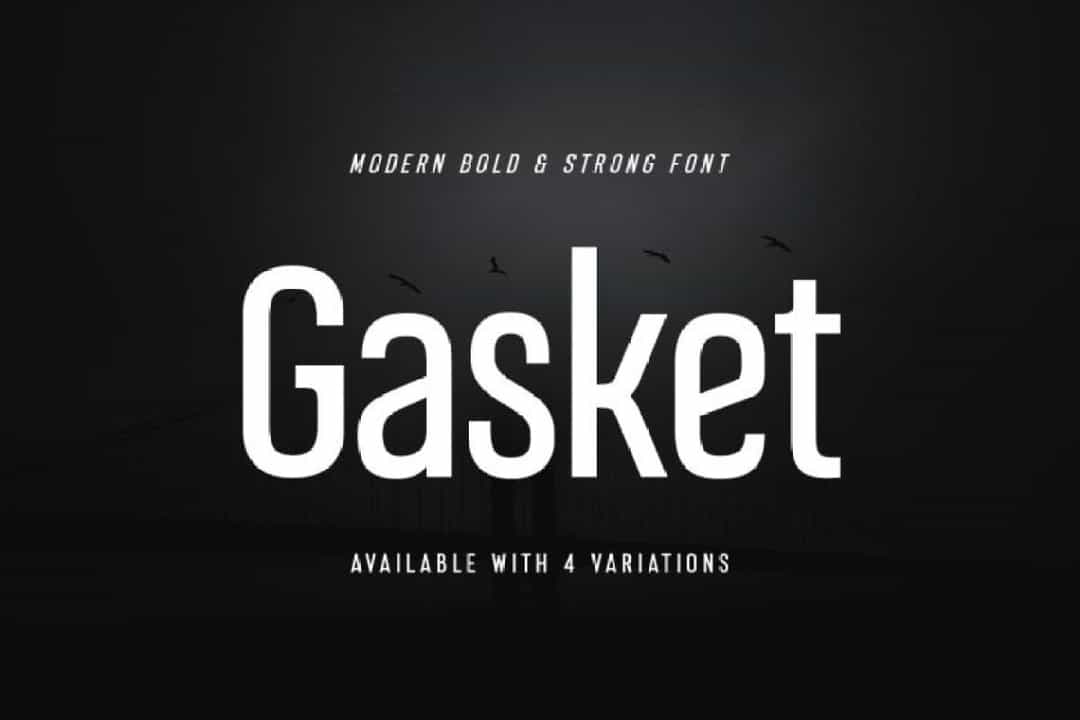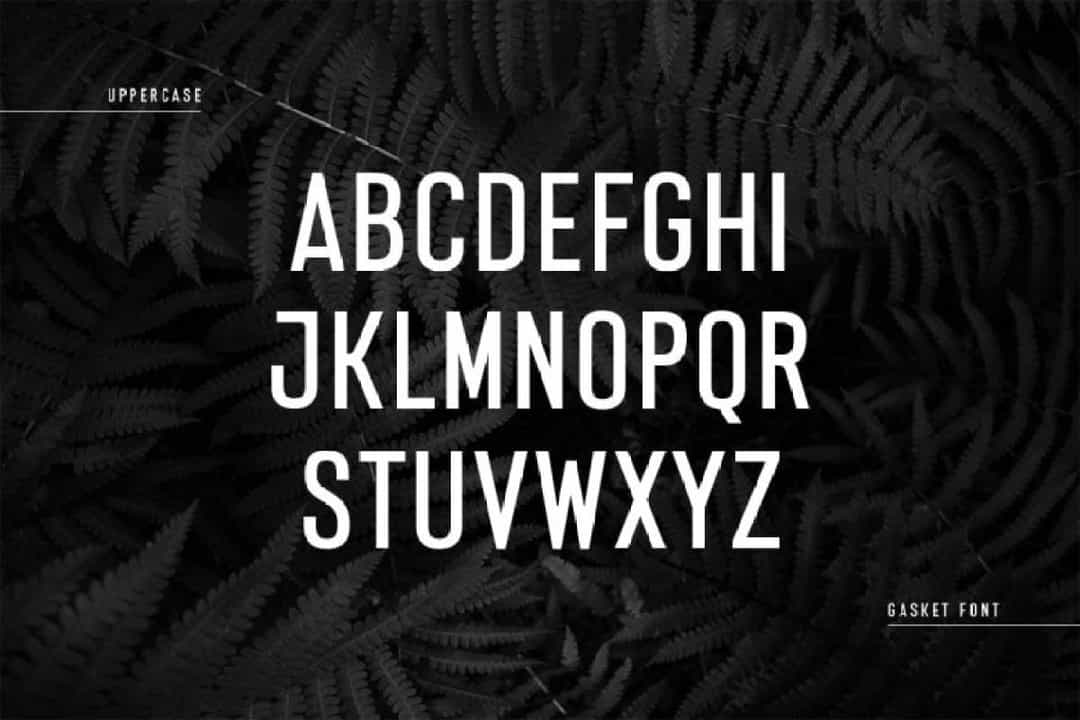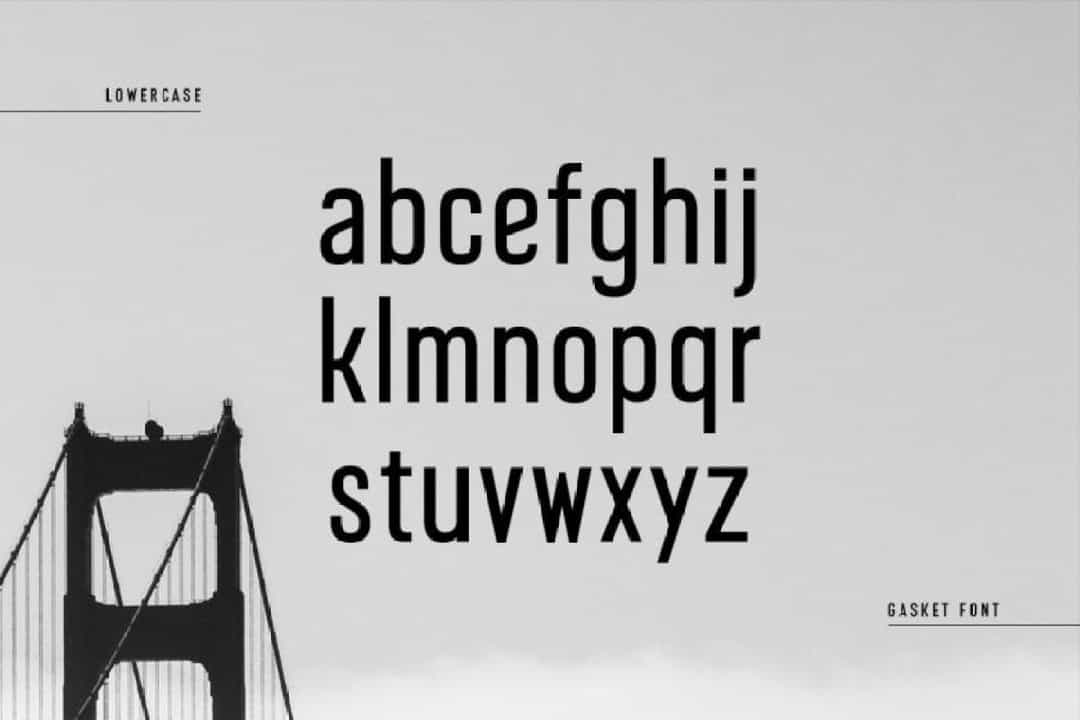
Gasket Font is a modern Condensed Sans Serif font designed specifically to meet corporate headline needs. This new Sans Serif font was developed especially to meet any project requirements such as corporate meetings or business proposals; with additional outline and italic versions that can boost its value even more.